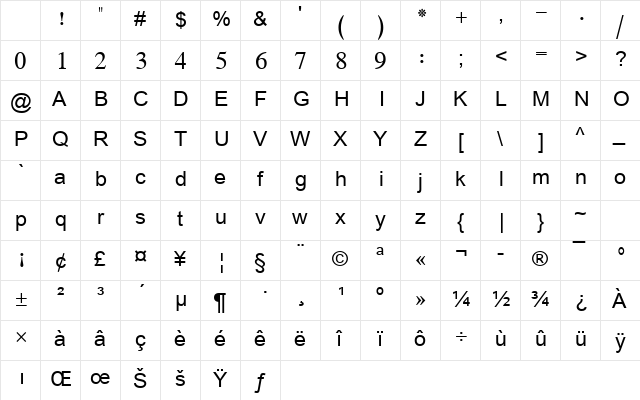
Simplified Arabic Regular
Complete Simplified Arabic Regular glyph index. Displaying only characters natively supported by Simplified Arabic Regular font.
Design Context for Simplified Arabic
Simplified Arabic is a composed and adaptable typeface that performs quietly and consistently across a wide range of design contexts.